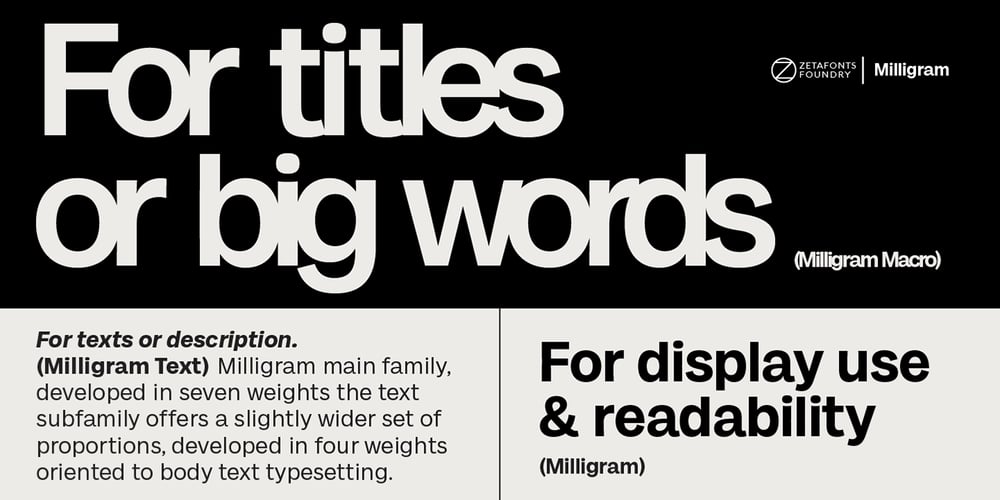
Milligram Font Family was designed by Andrea Tartarelli, Cosimo Lorenzo Pancini and published by Zetafonts. Milligram contains 38 styles and family package options. Grotesque sans typefaces: you know you won’t ever get tired of those. And any moment you decide that Vignelli was right and one Swiss font is enough, here comes a new specimen from the past inviting you to try new takes on the modernist letterforms. It’s a tight and crowded design space, so design decisions are subtle and almost unnoticeable. Whoever you decide to be in the details – either God or the Devil – you surely need a taste for the infinitesimal to work with these shapes. Time design borders sandstoning shapes, in a delicate equilibrium between modernist precise ideals and the fascinating energy of old lead grotesques. The resulting typeface develops around an idiosyncratic relationship with negative space, inspired by the tight metrics modernist designers imposed on their layouts. Leaving a text optimised spacing to the text subfamily, Milligram plays with a feeling of attraction behind shapes, something brought to the extremes in the logo-oriented Milligram Macro Variant. Designed by Cosimo Lorenzo Pancini with Andrea Tartarelli, Milligram is a fine but bold homage to the Akzidenz Grotesk that never was.• Suggested uses: Milligram is a versatile type family: perfect for modern branding and logo design (Milligram Macro), for text and editorial design (Milligram Text), web design, packaging and countless other projects;• 36 styles: 7 weights + 7 italics x 3 different styles + 2 variable fonts;• 759 glyphs in each weight;• Useful OpenType features: Access All Alternates, Case-Sensitive Forms, Glyph Composition / Decomposition, Denominators, Fractions, Kerning, Lining Figures, Localized Forms, Mark Positioning, Mark to Mark Positioning, Alternate Annotation Forms, Numerators, Oldstyle Figures, Ordinals, Proportional Figures, Scientific Inferiors, 5 Stylistic Sets, Subscript, Superscript, Tabular Figures, Slashed Zero;• 207 languages supported (extended Latin and Cyrillic alphabets): English, Spanish, Portuguese, French, Russian, German, Javanese (Latin), Turkish, Italian, Polish, Afaan Oromo, Tagalog, Sundanese (Latin), Filipino, Moldovan, Romanian, Indonesian, Dutch, Cebuano, Malay, Uzbek (Latin), Kurdish (Latin), Swahili, Hungarian, Czech, Haitian Creole, Hiligaynon, Afrikaans, Somali, Zulu, Serbian, Swedish, Bulgarian, Shona, Quechua, Albanian, Catalan, Chichewa, Ilocano, Kikongo, Kinyarwanda, Neapolitan, Xhosa, Tshiluba, Slovak, Danish, Gikuyu, Finnish, Norwegian, Sicilian, Sotho (Southern), Kirundi, Tswana, Sotho (Northern), Belarusian (Latin), Turkmen (Latin), Bemba, Lombard, Lithuanian, Tsonga, Wolof, Jamaican, Dholuo, Galician, Ganda, Low Saxon, Waray-Waray, Makhuwa, Bikol, Kapampangan (Latin), Aymara, Ndebele, Slovenian, Tumbuka, Venetian, Genoese, Piedmontese, Swazi, Latvian, Silesian, Bashkir (Latin), Sardinian, Estonian, Afar, Cape Verdean Creole, Maasai, Occitan, Tetum, Oshiwambo, Basque, Welsh, Chavacano, Dawan, Montenegrin, Walloon, Asturian, Kaqchikel, Ossetian (Latin), Zapotec, Frisian, Guadeloupean Creole, Q’eqchi’, Karakalpak (Latin), Crimean Tatar (Latin), Sango, Luxembourgish, Samoan, Maltese, Tzotzil, Fijian, Friulian, Icelandic, Sranan, Wayuu, Papiamento, Aromanian, Corsican, Breton, Amis, Gagauz (Latin), M?ori, Tok Pisin, Tongan, Alsatian, Atayal, Kiribati, Seychellois Creole, Võro, Tahitian, Scottish Gaelic, Chamorro, Greenlandic (Kalaallisut), Kashubian, Faroese, Rarotongan, Sorbian (Upper Sorbian), Karelian (Latin), Romansh, Chickasaw, Arvanitic (Latin), Nagamese Creole, Saramaccan, Ladin, Palauan, Sami (Northern Sami), Sorbian (Lower Sorbian), Drehu, Wallisian, Aragonese, Mirandese, Tuvaluan, Xavante, Zuni, Montagnais, Hawaiian, Marquesan, Niuean, Yapese, Vepsian, Bislama, Hopi, Megleno-Romanian, Creek, Aranese, Rotokas, Tokelauan, Mohawk, Warlpiri, Cimbrian, Sami (Lule Sami), Jèrriais, Arrernte, Murrinh-Patha, Kala Lagaw Ya, Cofán, Gwich’in, Seri, Sami (Southern Sami), Istro-Romanian, Wik-Mungkan, Anuta, Sami (Inari Sami), Yindjibarndi, Noongar, Hotc?k (Latin), Meriam Mir, Manx, Shawnee, Gooniyandi, Ido, Wiradjuri, Hän, Ngiyambaa, Delaware, Potawatomi, Abenaki, Esperanto, Folkspraak, Interglossa, Interlingua, Latin, Latino sine Flexione, Lojban, Novial, Occidental, Slovio (Latin), Volapük.